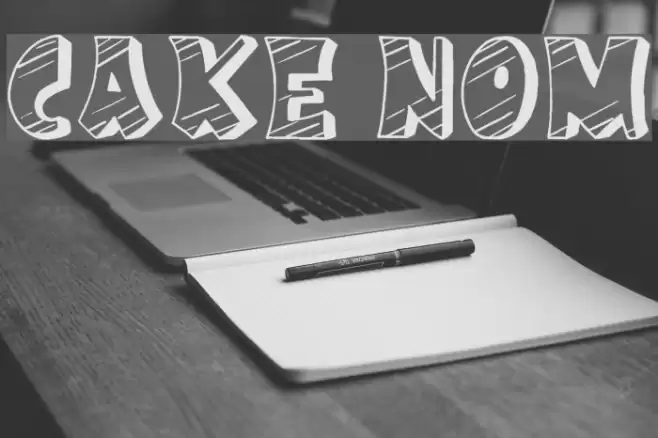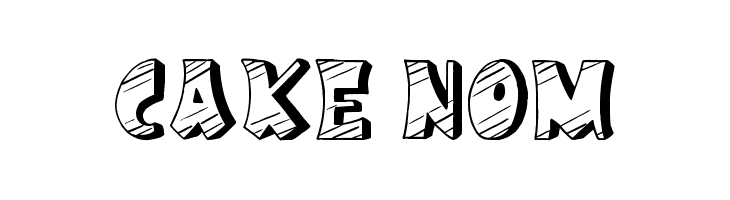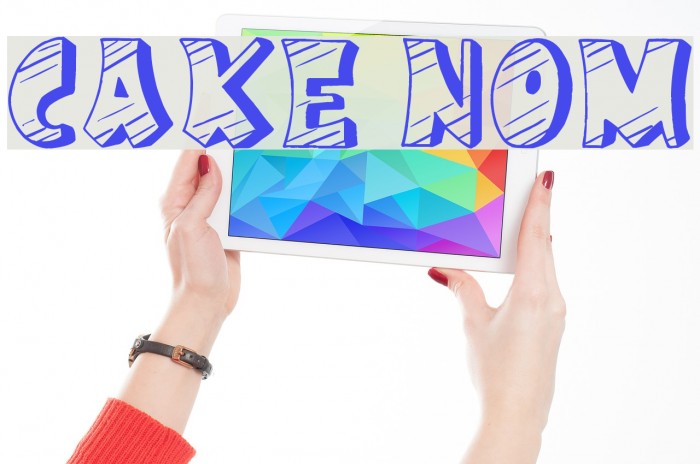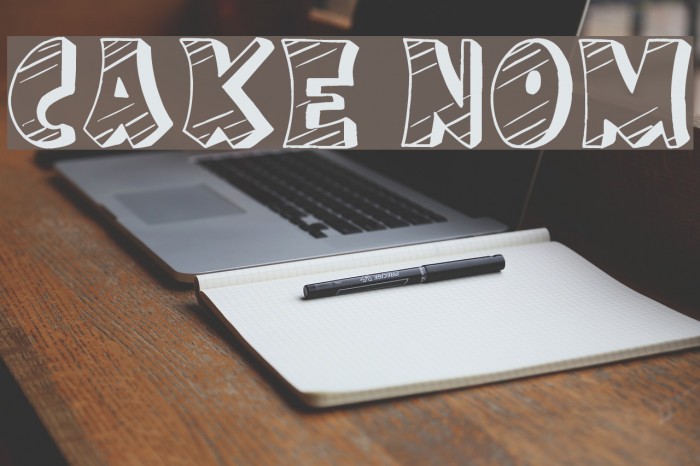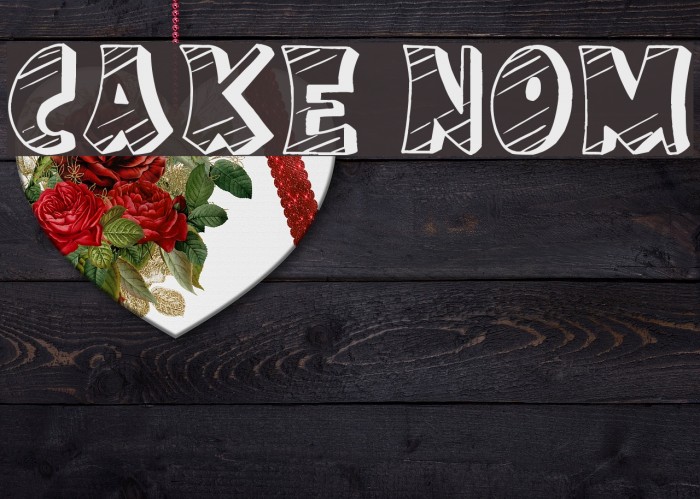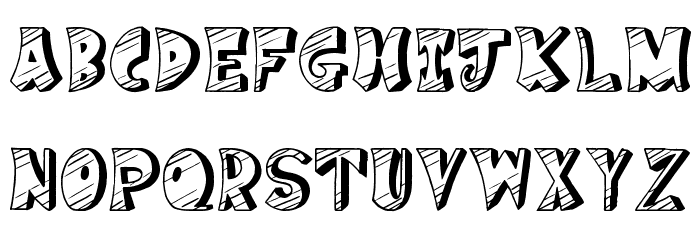
Cake Nom Font
Cake Nom Description
This font features a playful and whimsical design, characterized by bold, cartoonish letters with a three-dimensional effect. The uppercase and lowercase letters are crafted with a unique, hand-drawn style that includes diagonal stripes and a shadow effect, giving them a sense of depth and movement. The numbers and special characters maintain this lively aesthetic, ensuring consistency throughout the typeface. The font's bold strokes and decorative elements make it stand out, ideal for projects that require a fun and engaging visual appeal.
A playful, bold font with a hand-drawn, three-dimensional style from Cartoon fonts.
- Proposed Projects: Perfect for children's books, comic strips, playful branding, party invitations, and any design project that aims to convey a sense of fun and creativity.